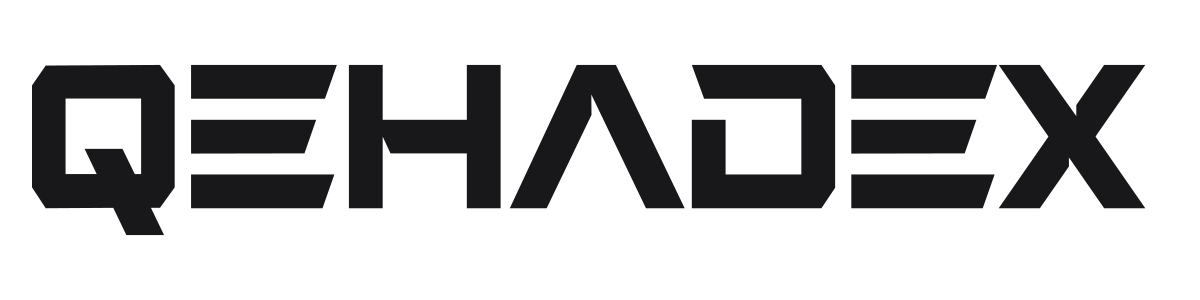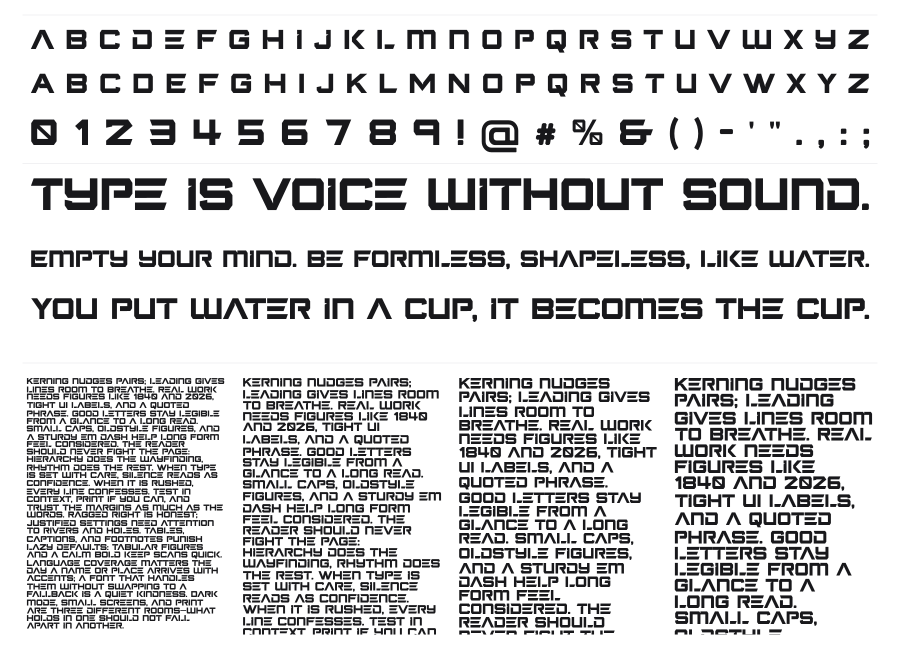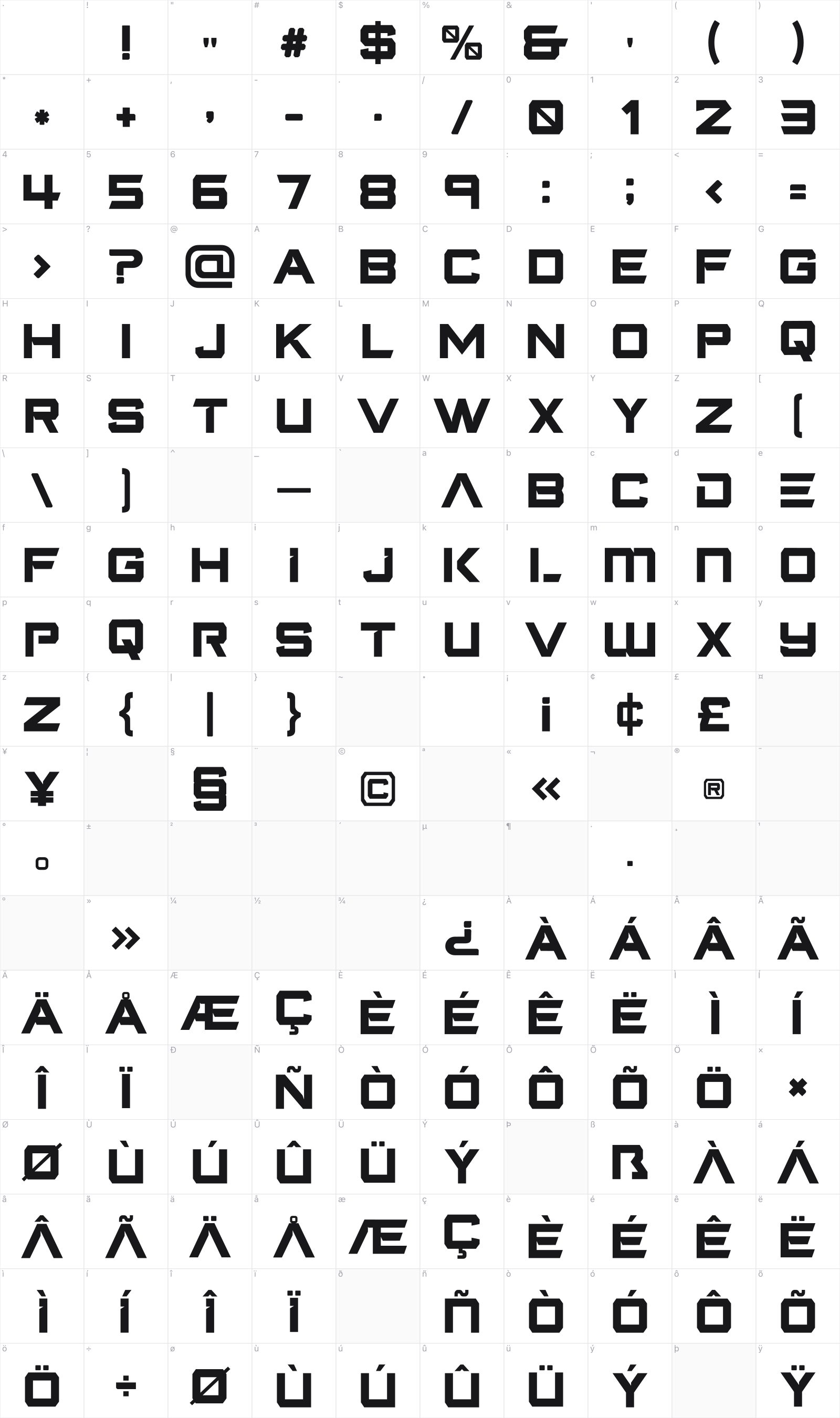
Qehadex
Qehadex is a bold futuristic display font built from angular, mechanically cut geometric forms. Diagonal notches at terminals and joints give the characters a sharp, engineered quality that reads as cyberpunk or military tech. Best used large, where the precision of the cuts has room to register.